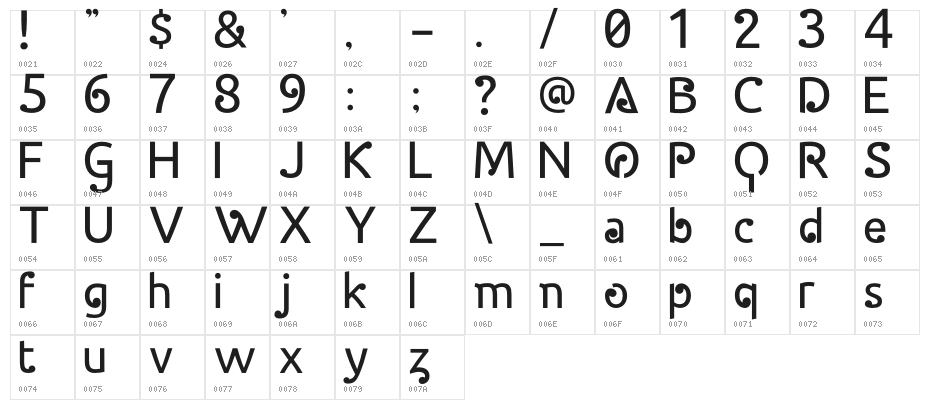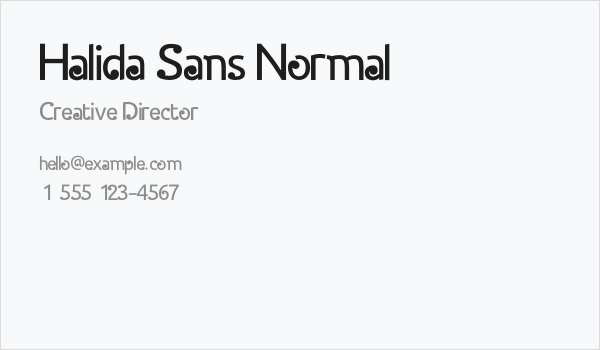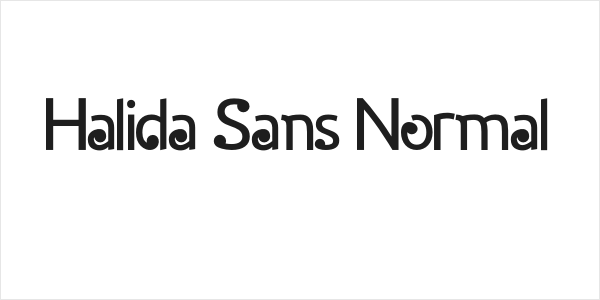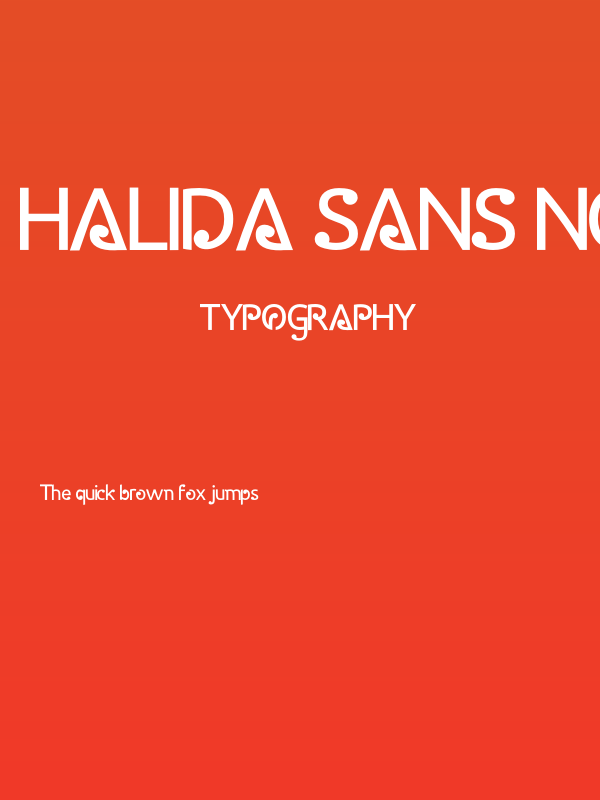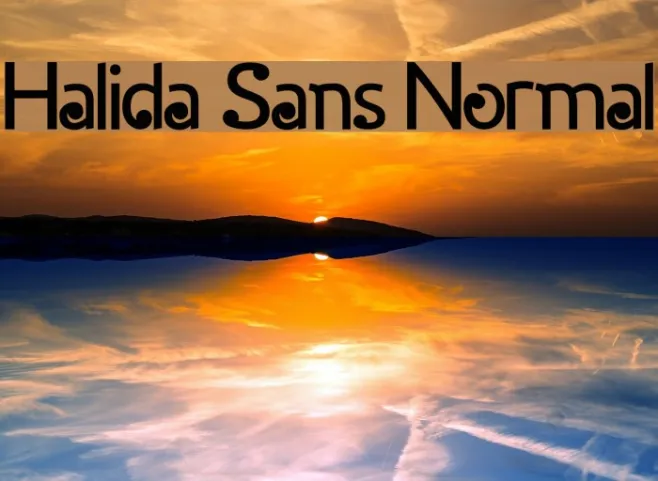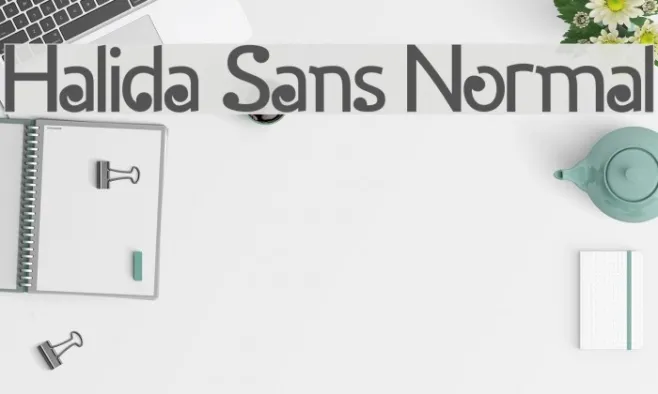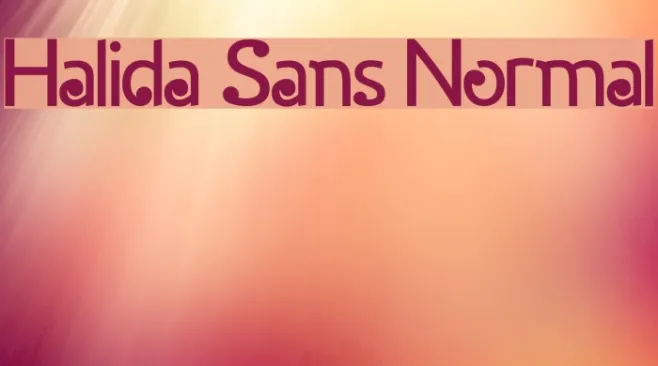
Halida Sans Normal Font
Halida Sans Normal Description
This font features a modern and playful design with a unique twist on traditional sans-serif styles. The characters are bold and rounded, with distinctive curves and a slightly whimsical flair. The uppercase letters have a strong presence, while the lowercase letters maintain a consistent flow, making it versatile for various design needs. The numerals are clear and easy to read, and the special characters are well-integrated, adding to the font's overall cohesive look. Its clean lines and smooth curves make it suitable for both digital and print media.
| Proposed Projects | Ideal for branding, advertising, posters, and digital media where a modern and playful tone is desired. |